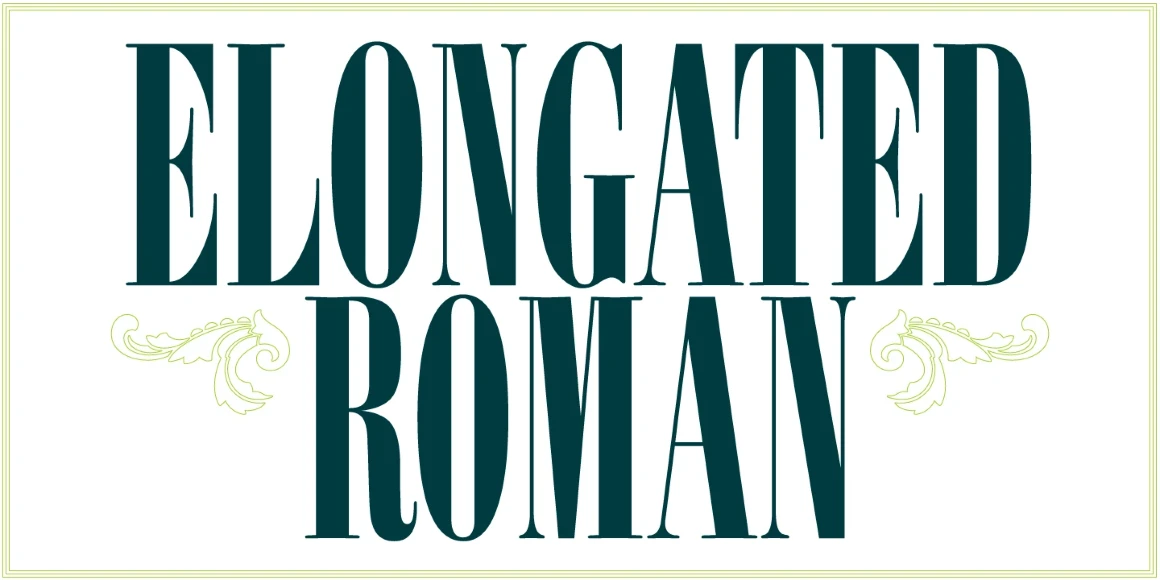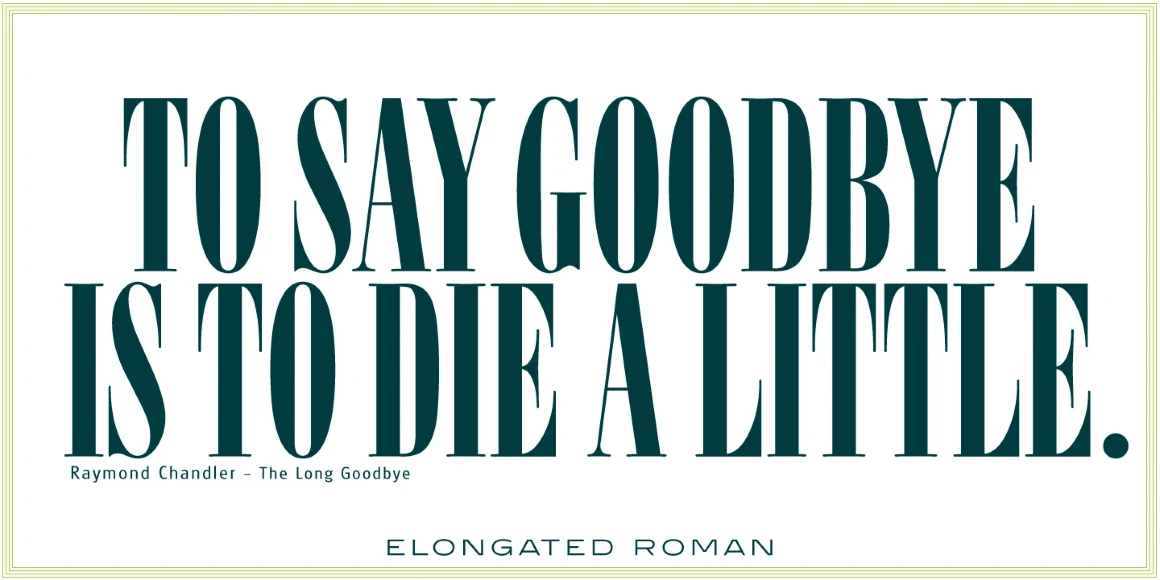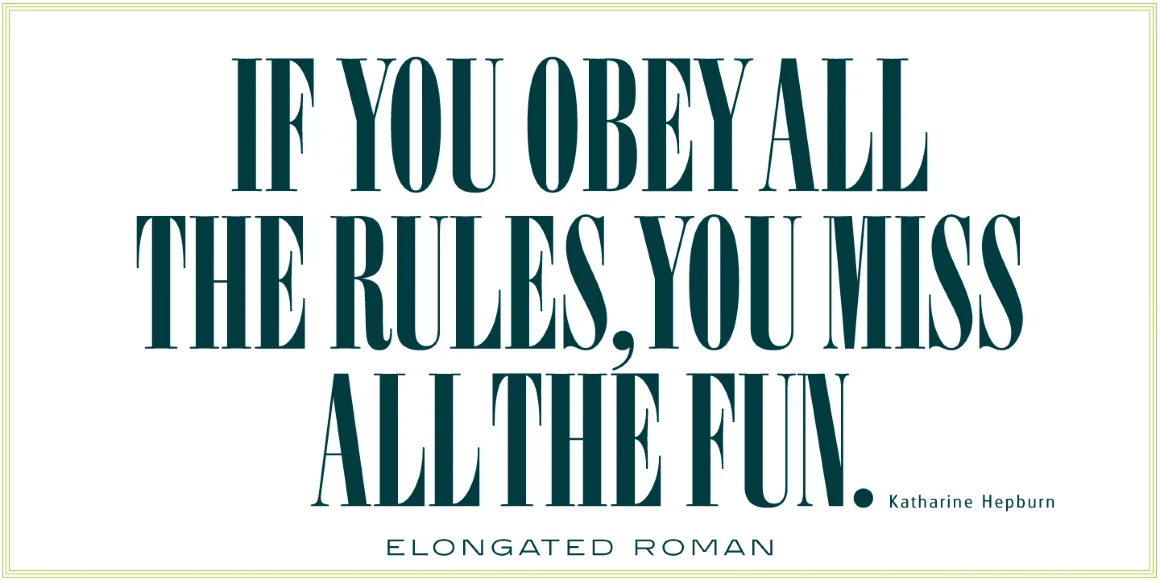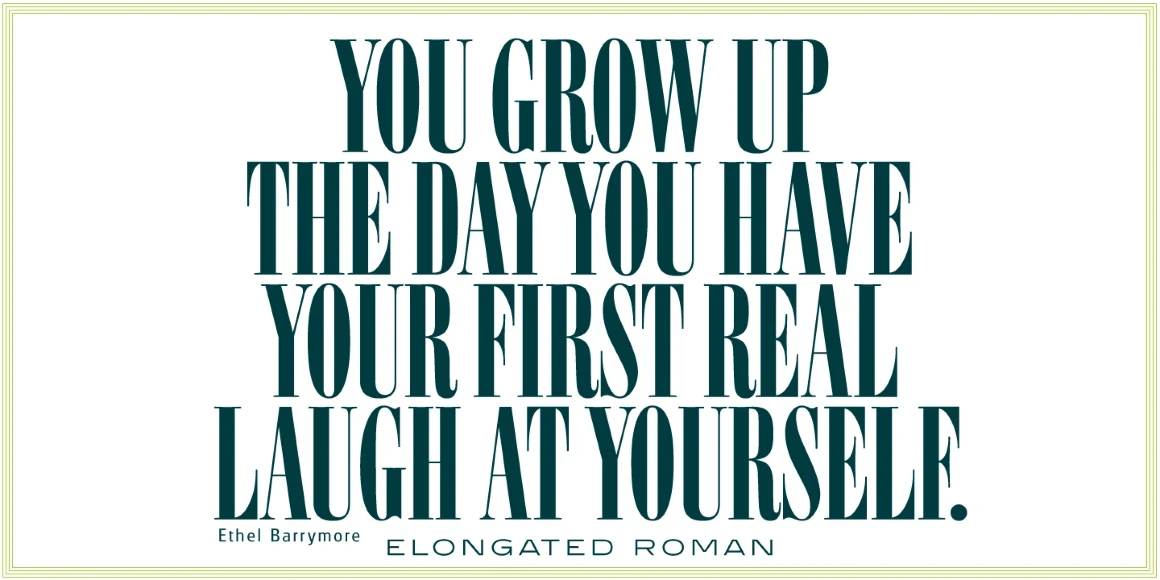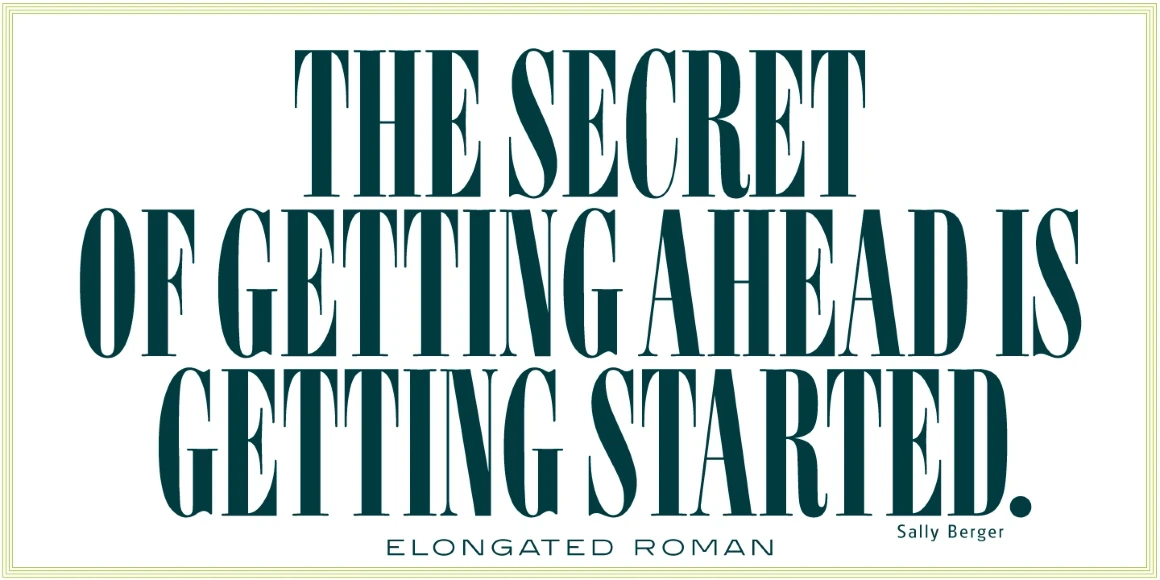
Elongated Roman
Elongated Roman Regular
Elongated Roman is a Didone-style serif typeface that was originally designed and released in 1950 by Stephenson Blake. After International TypeFounders, Inc. acquired exclusive licensing rights to the SB Collection, Steve Jackaman (ITF) digitally revived the typeface in 1997 for the Red Rooster Collection. Much like other Didone typefaces, Elongated Roman’s strong contrast between thick and thin strokes and hairline serif design strengthen its elegance as a “modern face.” Unlike other Didone typefaces in the Red Rooster Collection, Elongated Roman was designed with display size in mind thanks to its strong variance in stroke weight.